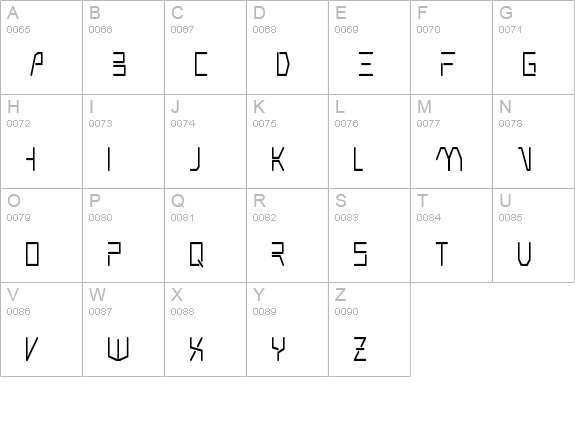
Rsandromed Cn font is a modern and stylish typeface that exudes elegance and sophistication. With its sleek and streamlined design, this font is perfect for adding a touch of class to any project. The clean lines and geometric shapes of Rsandromed Cn make it versatile and ideal for a wide range of design applications. One of the best features of Rsandromed Cn font is that it is free to download at FontsMarket.com. This means that you can easily access this high-quality typeface without having to worry about any additional costs. Whether you are working on a personal project or a professional design, Rsandromed Cn font is a fantastic choice that will help you achieve a polished and refined look. Add a touch of sophistication to your next design project with Rsandromed Cn font, available for free download at FontsMarket.com.